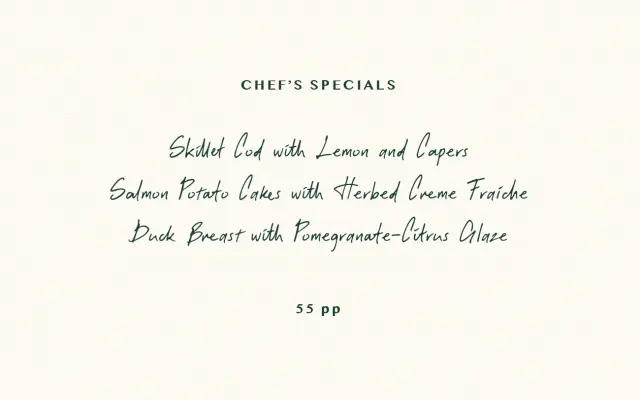
A flowing cursive handwriting font with over 80 ligatures aimed at designs requiring a soft, feminine character.
A handwritten script face built around natural cursive letterforms with more than 80 ligatures that help create the impression of continuous, connected writing. Intended for projects where a gentle, personal quality is needed, such as wedding stationery, greeting cards or lifestyle branding. Single weight offering without italics or condensed variants.
Marina is a handwritten cursive script with ligatures, characteristic of casual script fonts designed to mimic natural handwriting with a feminine, flowing quality.